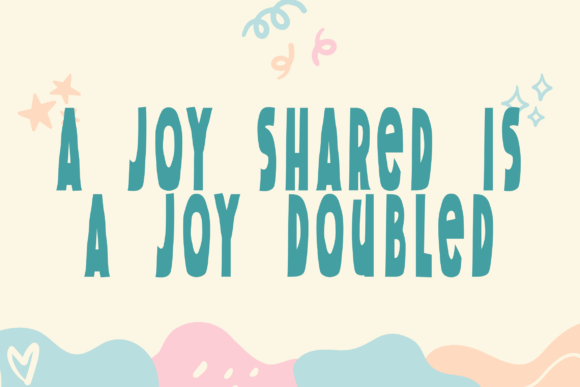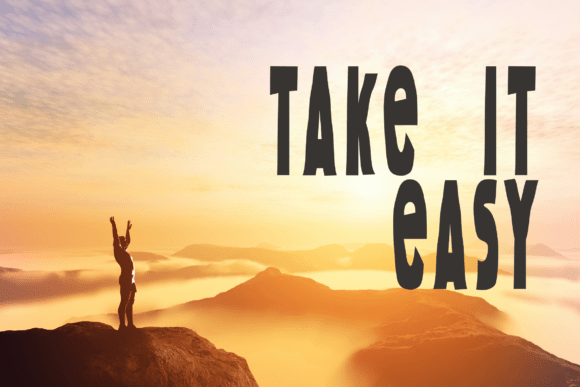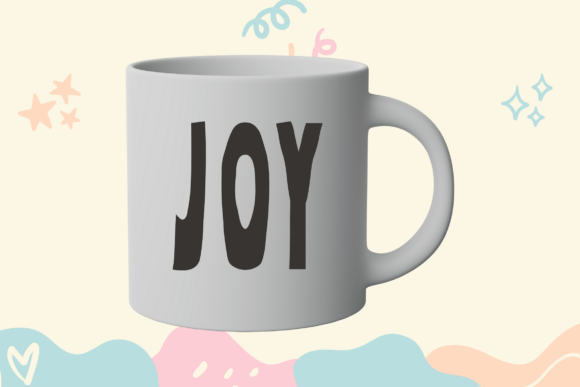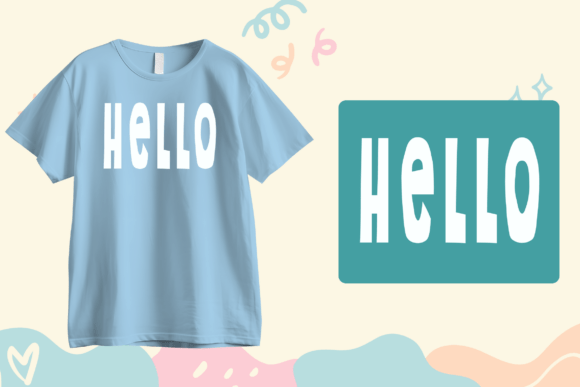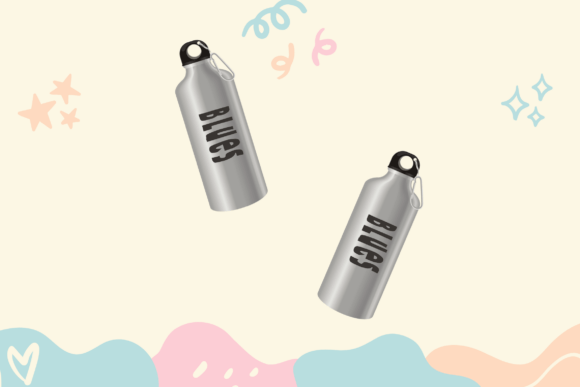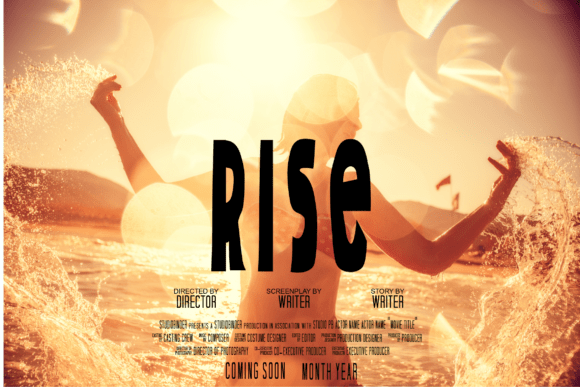
Introduction to Handwriting Condense Font
Introducing the Handwriting Condense Font – a sublime blend of the authentic charm of handwritten fonts allied with the modern definition of chic.
The typeface is elegant, featuring slender, tall characters that echo realistic, organic pen movements Its smart condensation is a solution for your space-saving needs, simultaneously giving a nod to sophistication and personal touch.
Key Features of Handwriting Condense Font